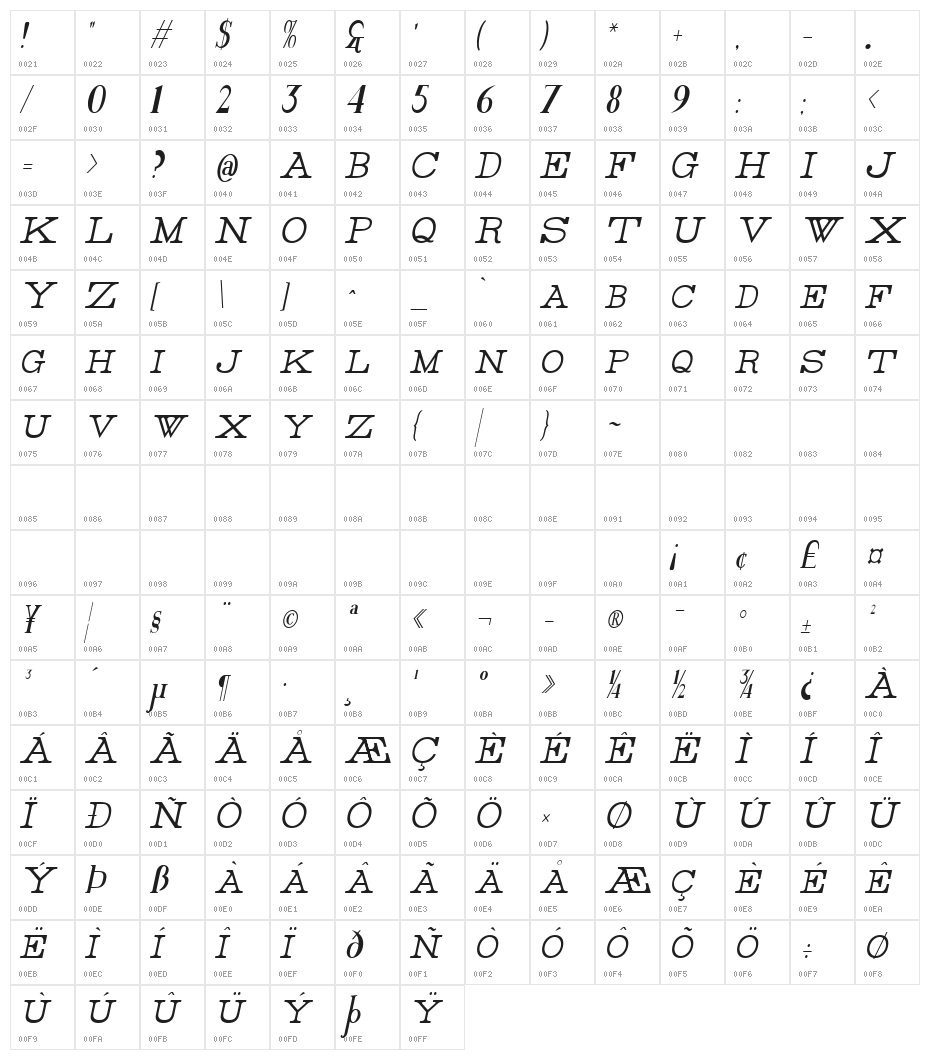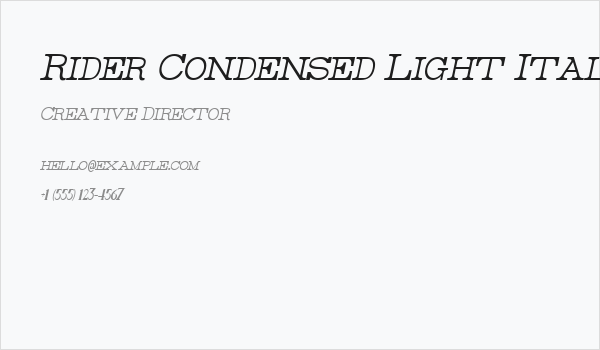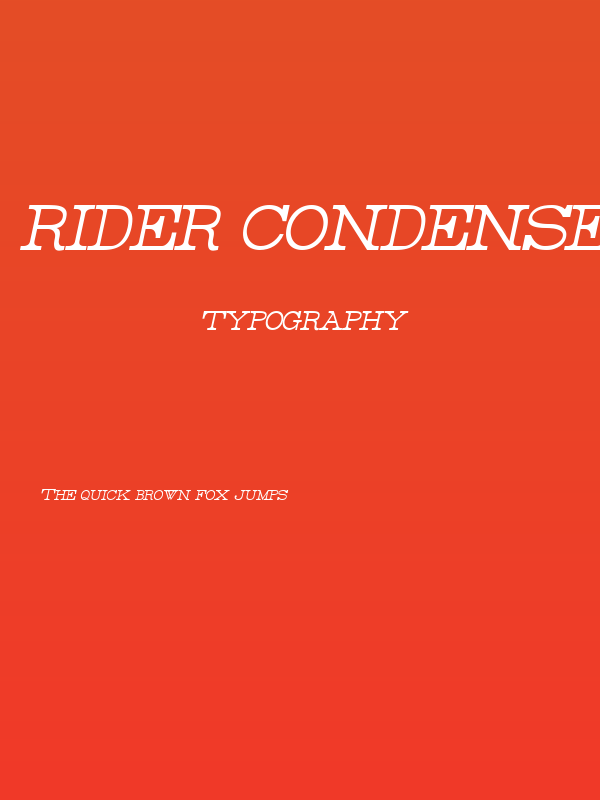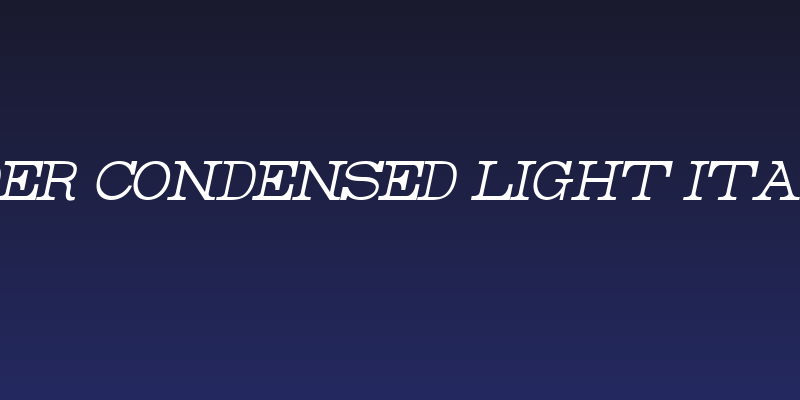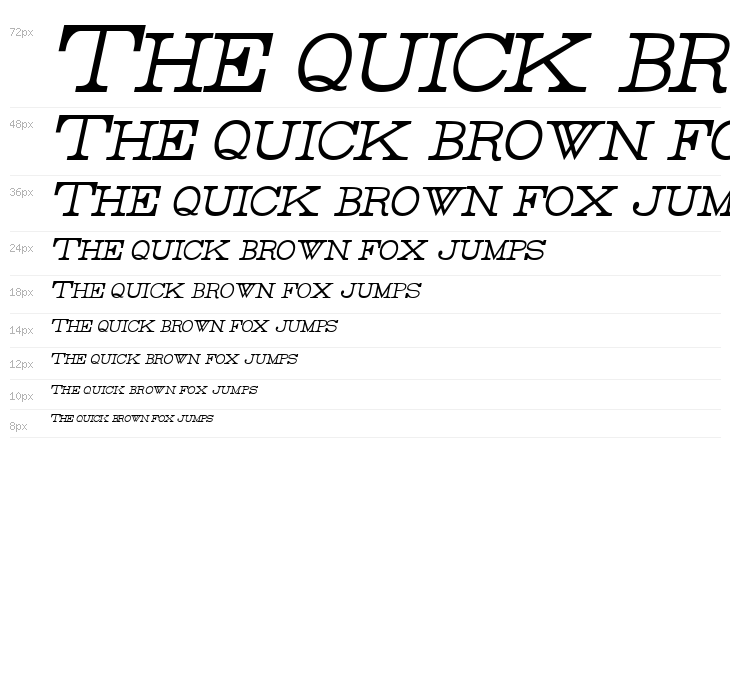
Rider Condensed Light Italic Font
Rider Condensed Light Italic Description
This font features a sophisticated and elegant design with a condensed structure that emphasizes verticality. The light weight of the strokes gives it a delicate appearance, while the italic slant adds a sense of movement and dynamism. The serifs are subtle yet distinct, contributing to its classic appeal. The characters are well-proportioned, maintaining readability despite the condensed form. The numerals are consistent with the overall style, and the special characters are crafted with the same attention to detail, ensuring a cohesive look across all elements.
| Proposed Projects | Ideal for use in fashion magazines, elegant invitations, and sophisticated branding projects. |